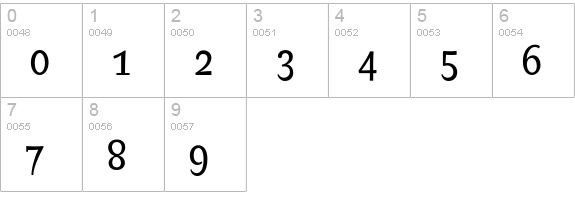
BiblonCaps-Regular Font Details
BiblonCaps-Regular is the standard, neutral variant in the BiblonCaps typeface family \xE2\x80\x94 well suited to general body text, paragraphs, and standard typographic work.
BiblonCaps-Regular is a versatile and stylish font that exudes elegance and sophistication. Its clean lines and classic appeal make it perfect for a wide range of design projects, from branding to editorial design. The uppercase characters are beautifully crafted with a touch of vintage charm, adding a unique flair to any text. This font is a great choice for logos, headlines, and other creative projects that require a touch of sophistication. The best part? BiblonCaps-Regular is completely free to download at FontsMarket.com. You can easily access this elegant font and elevate your design projects without any cost. Don't miss out on this opportunity to enhance your designs with the timeless beauty of BiblonCaps-Regular. Download it now and add a touch of elegance to your next project!